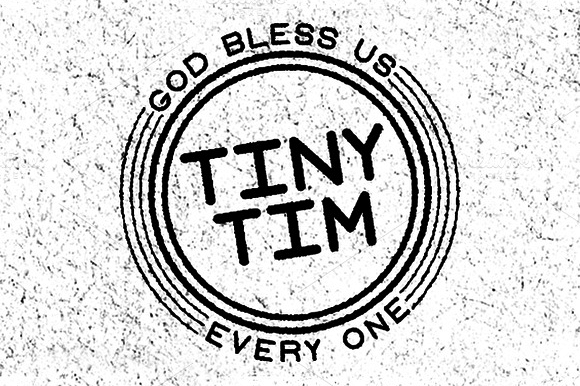
Tiny Tim
Tiny Tim comes in two weights, 'clean' & 'rough'.
It's a rounded sans serif typeface that's loved supporting display headlines. Tiny Tim looks great on a curve and has just the right amount of charm to bless your most ambitious designs. Every one.